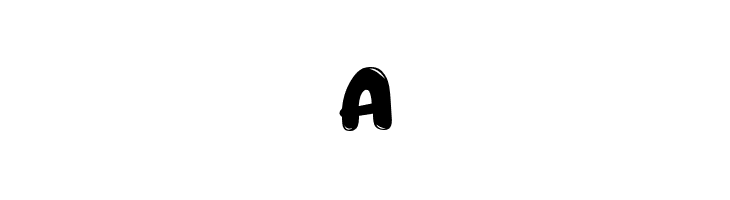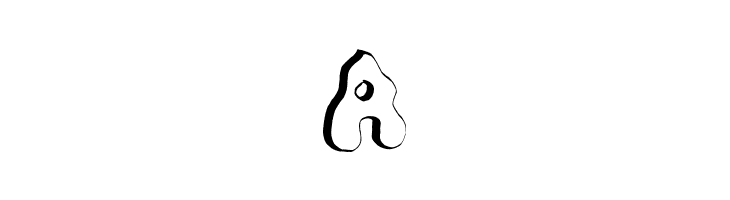
( Fonts by Jonathan S. Harris )
A playful, wavy font with a jelly-like texture and bold, rounded characters.
( Fonts by Loraine Wauer Ferus www.billybear4kids.com )
A playful, bold font with rounded, bouncy characters and whimsical elements.
( Fonts by Holydie Studio )
A playful, bold font with rounded, bubbly characters ideal for creative projects.
A playful, hand-drawn font with rounded, fluid characters.
( Fonts by Kong Font )
A playful, bold font with rounded, bubbly characters and a whimsical style.
A lively, cursive font with bold, flowing characters and elegant swashes.
A lively, expressive script font with fluid, cursive strokes and playful loops.
An elegant, flowing script font with ornate, cursive letterforms.
A bold, cursive font with elegant, flowing lines and high contrast.
An elegant, flowing script font with graceful curves and swashes.
A bold, narrow serif font with a strong, authoritative presence.
A bold, geometric font with a strong, blocky appearance.
( Fonts by Rúben F. )
A playful, bold font with a quirky, hand-drawn aesthetic.
( Danny Amor - formerly at penelope.cli.di.unipi.it/~amor/ )
A bold, decorative font with a Western-inspired, vintage style.
A bold, angular font with a medieval blackletter influence.
A bold serif font with sharp, angular features and a modern twist.
A bold, expressive brush-style font with a dynamic, hand-painted look.
A bold, dynamic script font with flowing, cursive strokes.
A decorative and modern font with ornate uppercase and clean lowercase letters.
A lively and expressive handwritten font with fluid strokes.
A cursive, elegant font with flowing strokes and a sophisticated style.
( Fonts by Staircase Studio )
A lively handwritten script with expressive, flowing lines.
A playful, bold handwritten font with a lively and dynamic style.
( JasonFont )
A handwritten style font with an organic and casual appearance.
A modern, stylish font with sharp, angular uppercase and smooth, rounded lowercase letters.
A lively and dynamic script font with fluid, connected letterforms.
A sophisticated script font with flowing, connected strokes and decorative flourishes.
( Fonts by Staircase Studio )
A graceful, cursive script font with a natural, handwritten style.
A bold, playful handwritten font with thick strokes and rounded edges.
A graceful and elegant script font with smooth, flowing curves.
A playful, hand-drawn font with dynamic and whimsical characters.
( Fonts by 7NTypes )
A playful, handwritten font with a lively and whimsical style.
A playful, hand-drawn font with bold, rounded characters and a whimsical style.
A bold, playful font with exaggerated strokes and whimsical curves.